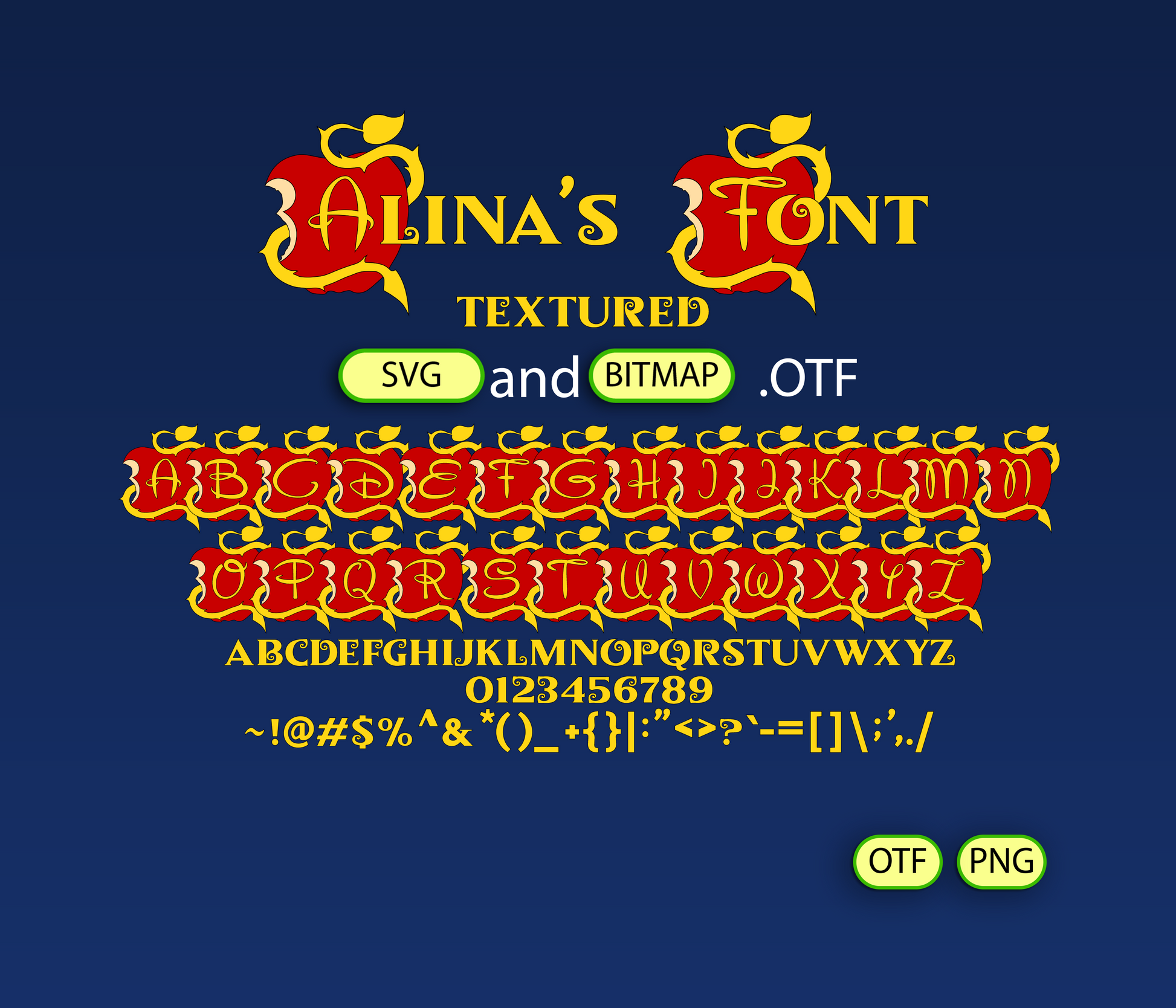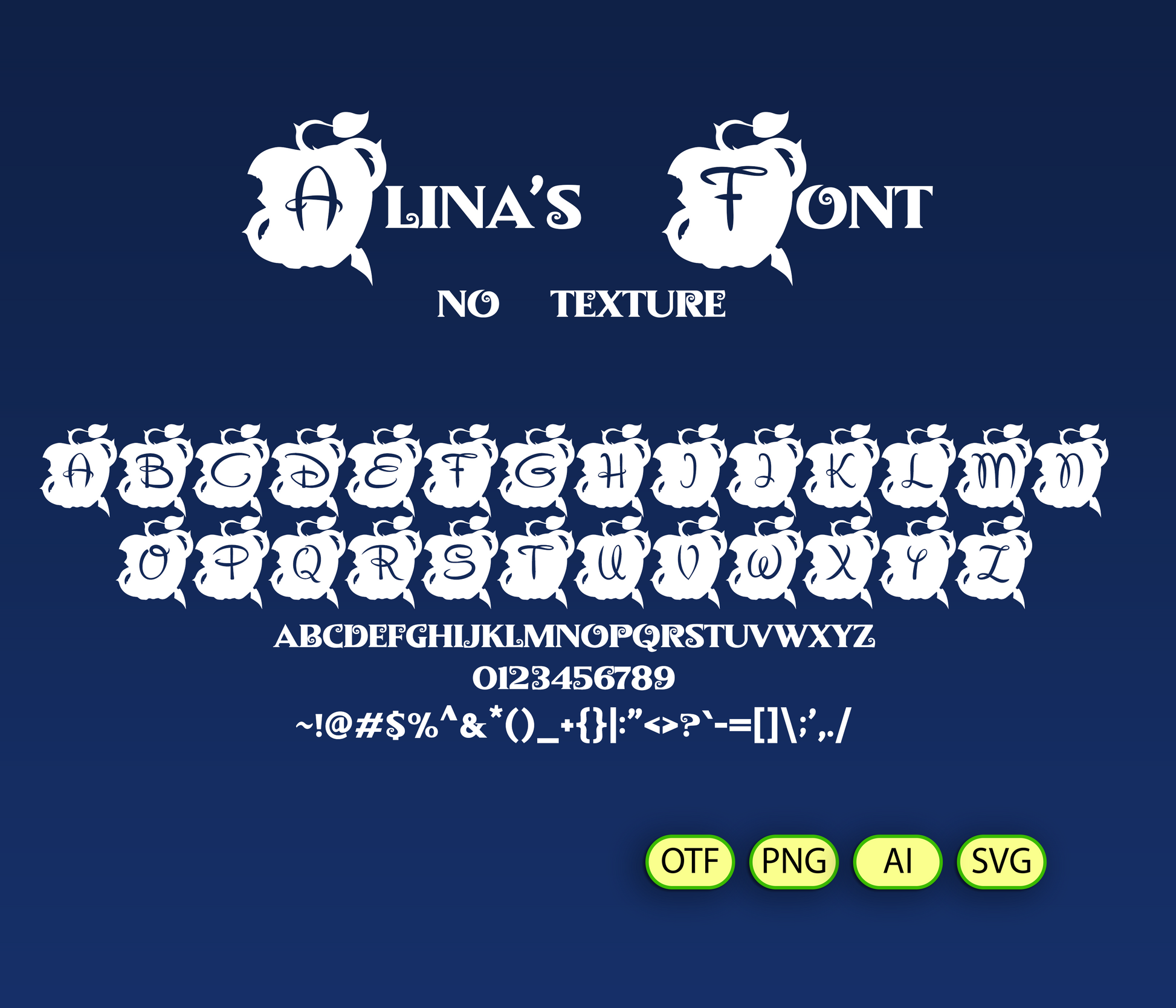
Magical Heirs Font Textured
Step into the enchanted world of modern fairy tales with our Magical Heirs font, capturing the essence of next-generation enchantment and contemporary fantasy. Perfect for young fairy-tale fans, party planners, event organizers, and designers, this font brings the edgy, magical spirit of teen royalty to your projects. Create trendy materials, merchandise, or digital content with the vibrant energy of modern magic.
Our Magical Heirs font features bold, contemporary lines and stylish characters reflecting the world of modern enchantment. Ideal for:
1. Event Promotions: Create trendy invites, posters, and banners for teen parties, fantasy events, and themed celebrations that capture the spirit of next-gen magic
2. Merchandise Design: Perfect for t-shirts, posters, and accessories that showcase the fashionable side of fairy-tale legacy
3. Digital Media: Enhance websites, blogs, and social media with dynamic headers and graphics that express the fusion of magic and modernity
4. Fantasy Content: Add authentic flair to fan art, fashion designs, and creative projects inspired by contemporary fairy tales
5. Personal Projects: Bring magical style to scrapbooking, DIY crafts, and home decor inspired by the world of modern enchantment
Our font pays tribute to the beloved world of modern fairy tales, empowering your designs with its contemporary and magical spirit. Whether crafting promotional materials, designing merchandise, or adding a trendy touch to personal projects, this font communicates the bold essence of next-generation enchantment. Ready to inject modern magic into your creations? This font is your key to exciting, impactful design.